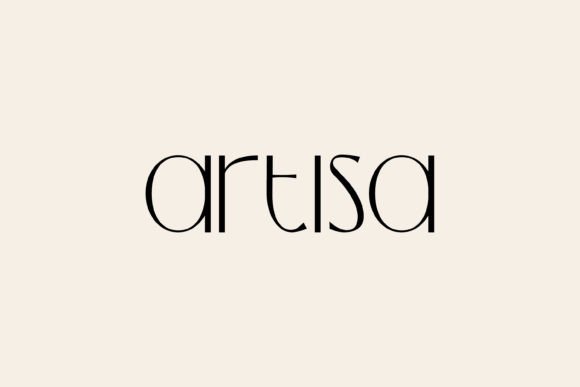
The Elegant Artisa Font: A Designer’s New Best Friend
I still remember the design project that led me to discover the Artisa font. I was working on a luxury brand’s visual identity, and I needed a typeface that exuded elegance and sophistication. After hours of scouring font libraries and testing various options, I stumbled upon Artisa – and it was love at first sight! ✨
This stunning, minimal typeface has a luxurious vibe that’s perfect for brands that want to convey modernity and fashion sense. One of the unique features of Artisa is that its uppercase and lowercase letters are the same height, which gives it a beautiful, harmonious look.
An Honest Review of Artisa Font
What I Love About Artisa ✨
- ✅ Elegant and minimalist design that’s perfect for luxury brands
- ✅ Uppercase and lowercase letters are the same height, creating a beautiful visual harmony
- ✅ Works well for both digital and print applications
While Artisa is an amazing font, there are a few things to keep in mind:
- 🤔 It may not be the best choice for body text, as it’s more suited for headlines and titles
- ⚠️ Some OpenType features may not work in older software or browsers
The Story Behind Artisa Font
Artisa was designed by a team of typographers who wanted to create a font that embodied the essence of luxury and sophistication. Inspired by classic serif fonts, they crafted a unique and elegant typeface that’s perfect for brands that want to stand out.
| Font Name | Artisa Font |
| Author | elvinova |
Q: What is the x-height of Artisa font?
A: The x-height of Artisa font is relatively high, which makes it highly legible.
Q: Is Artisa font suitable for body text?
A: While Artisa is a beautiful font, it’s more suited for headlines and titles. For body text, you may want to choose a font with better readability.